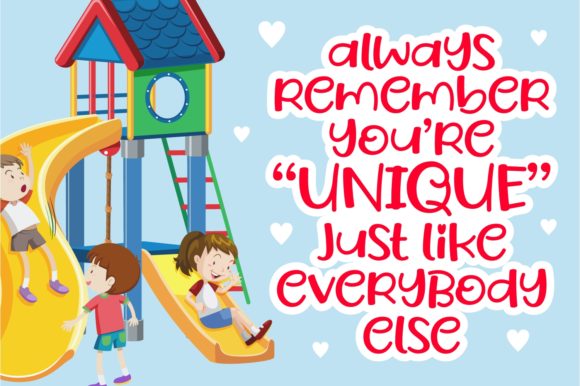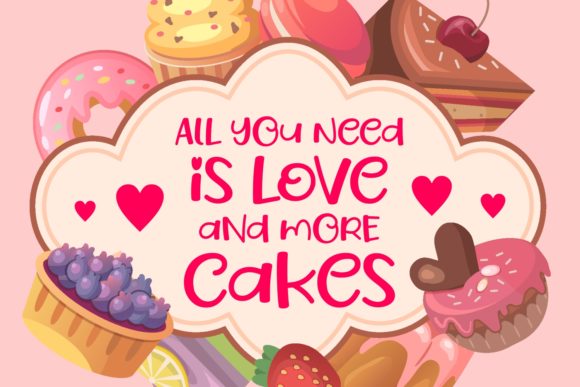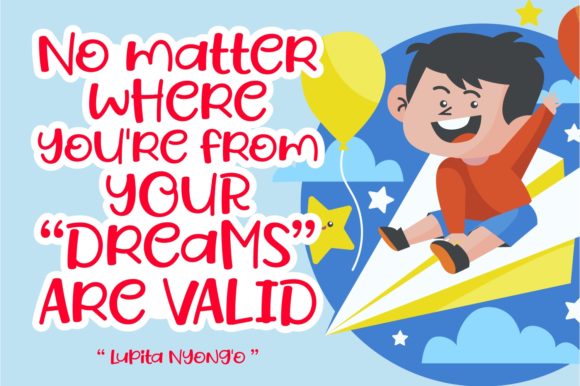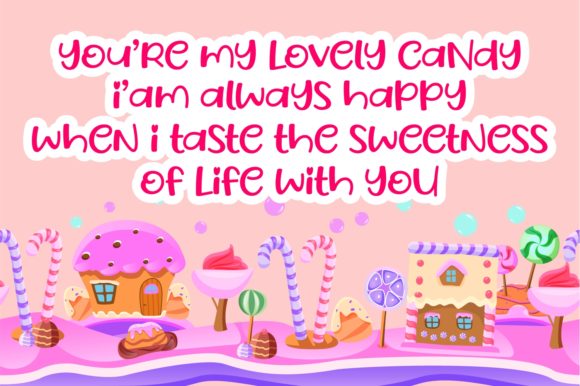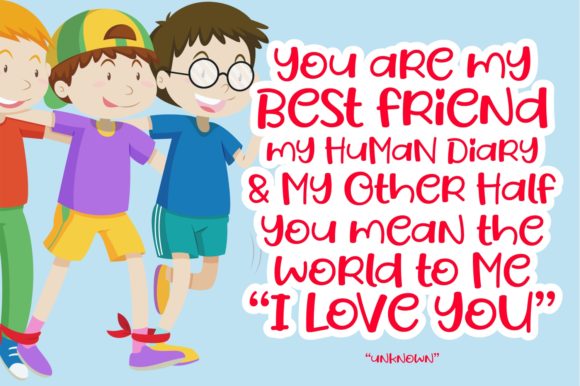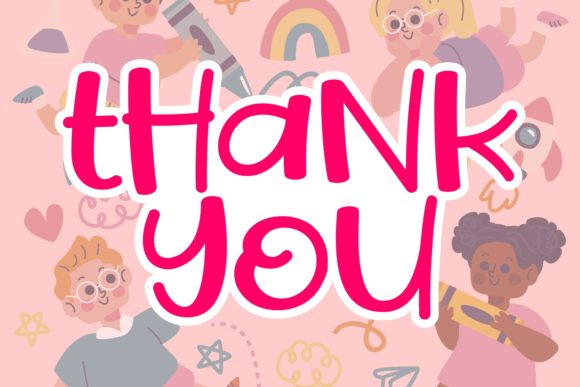
Playful Children Font
About Playful Children Font
Playful Children is a cute and quirky handwritten font. Get creative with its childlike playfulness, and use it to brighten up any kids and school project!